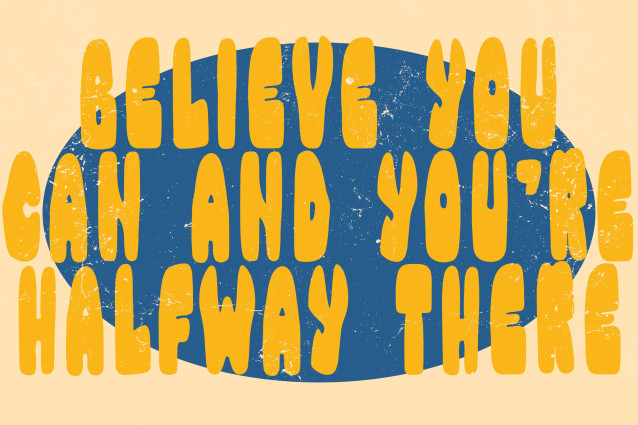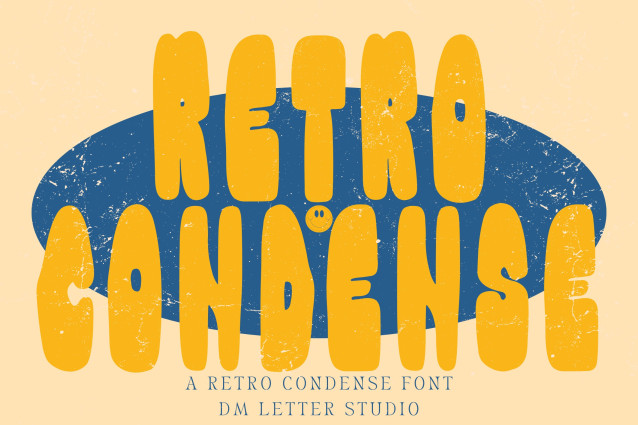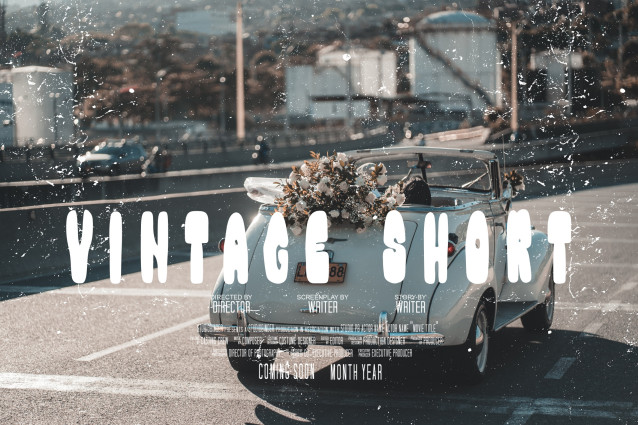
Retro Condense Font
Retro Condense Font is a sleek and stylish condensed font inspired by vintage design aesthetics. With its tall, narrow letterforms and retro flair, this display typeface is perfect for posters, branding, signage, packaging, and editorial layouts that call for a bold yet space-saving look. Retro Condense balances nostalgia with modern usability, making it a versatile addition to your font collection.